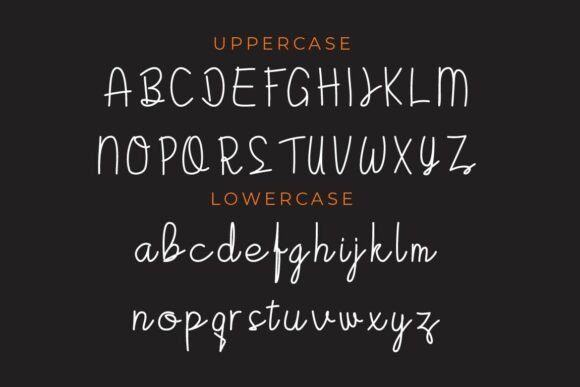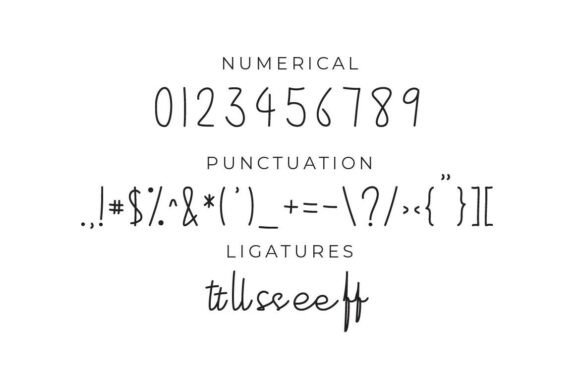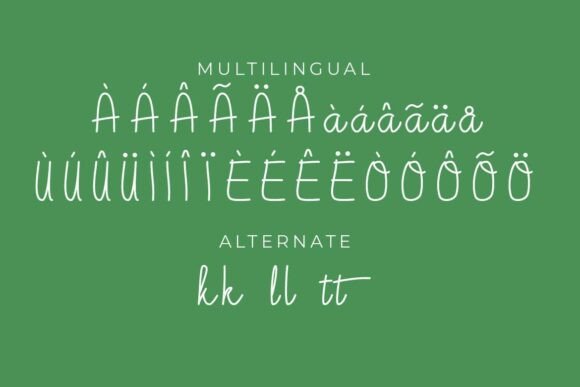
Introducing Antara Font: Elegant Script for Personal and Heartfelt Designs
In the world of typography, few fonts capture the essence of handwritten calligraphy as beautifully as Antara Font. This elegant script font is designed to bring a touch of sophistication and warmth to various design projects, making it perfect for moments that deserve a personal and heartfelt touch. With its flowing curves, subtle swashes, and graceful rhythm, Antara Font is an excellent choice for designers and crafters looking to add a touch of elegance to their work.
The Beauty of Antara Font
Antara Font is characterized by its delicate and refined features, which evoke the feeling of handwritten calligraphy. The font’s flowing curves and subtle swashes create a sense of movement and fluidity, making it perfect for designs that require a touch of elegance and sophistication. The font’s graceful rhythm adds to its beauty, making it a joy to use in various design projects.
Perfect for Wedding Designs and Feminine Branding
Antara Font is an excellent choice for wedding designs, thanks to its romantic and elegant feel. The font’s delicate curves and swashes make it perfect for wedding invitations, save-the-date cards, and other wedding-related designs. Additionally, Antara Font’s feminine and sophisticated style makes it an excellent choice for feminine branding, product packaging, and love notes.
Elegant Social Media Content
In today’s digital age, social media content is an essential part of any design project. Antara Font is perfect for creating elegant social media content, including Instagram posts, Facebook updates, and Twitter headers. The font’s refined features and elegant style make it an excellent choice for designers looking to create sophisticated and eye-catching social media content.
Key Features of Antara Font
- Elegant script font: Antara Font is an elegant script font that captures the delicate beauty of handwritten calligraphy.
- Flowing curves and subtle swashes: The font’s flowing curves and subtle swashes create a sense of movement and fluidity, making it perfect for designs that require a touch of elegance and sophistication.
- Graceful rhythm: The font’s graceful rhythm adds to its beauty, making it a joy to use in various design projects.
- Perfect for wedding designs and feminine branding: Antara Font is an excellent choice for wedding designs, feminine branding, product packaging, love notes, and elegant social media content.
Tips for Using Antara Font
Here are some tips for using Antara Font in your design projects:
- Pair with complementary fonts: Antara Font pairs well with complementary fonts, such as sans-serif fonts, to create a beautiful contrast.
- Use for headlines and titles: The font’s elegant style makes it perfect for headlines and titles, adding a touch of sophistication to your designs.
- Experiment with colors and textures: Antara Font looks great in various colors and textures, so don’t be afraid to experiment and find the perfect combination for your design.
In conclusion, Antara Font is an elegant script font that captures the delicate beauty of handwritten calligraphy. With its flowing curves, subtle swashes, and graceful rhythm, Antara Font is perfect for designers and crafters looking to add a touch of elegance and sophistication to their work. Whether you’re designing wedding invitations, feminine branding, product packaging, love notes, or elegant social media content, Antara Font is an excellent choice.